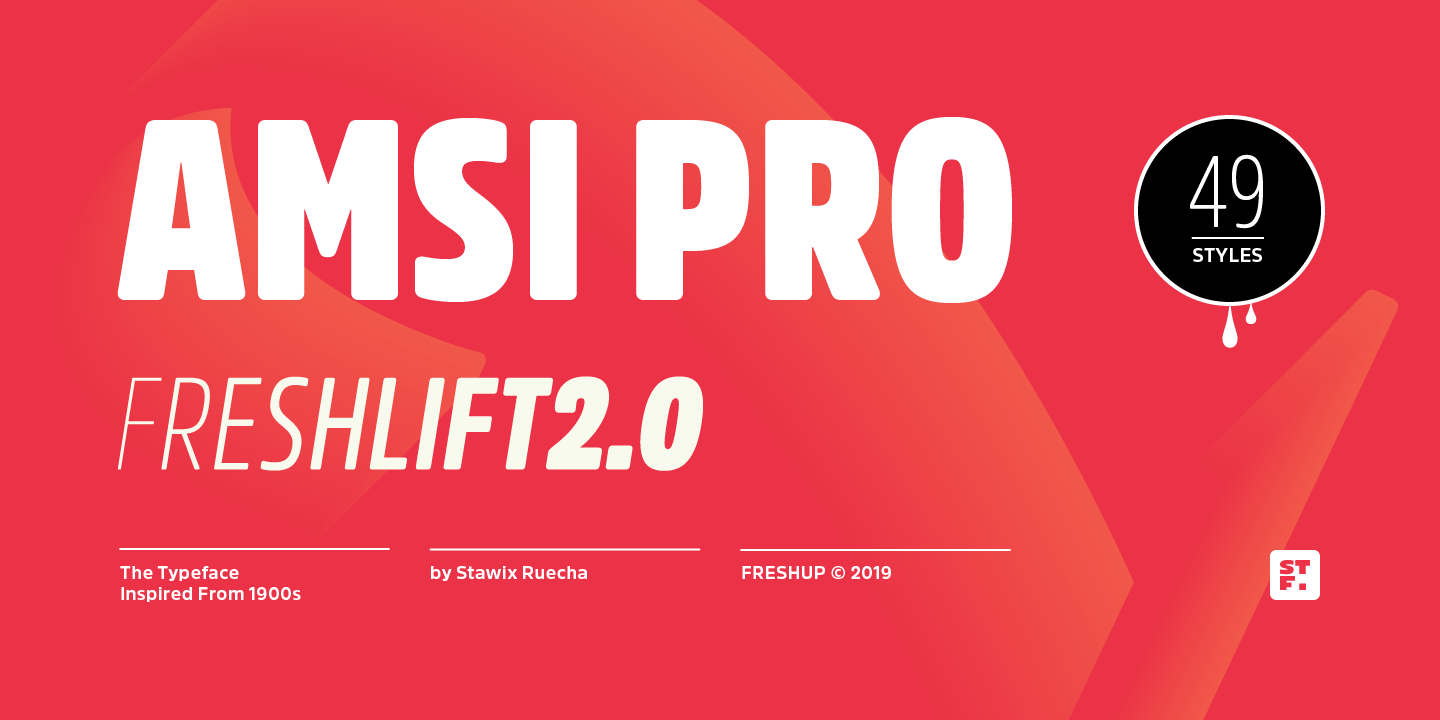
The Amsi Pro Font is exceptionally versatile and shines in a wide array of applications where clarity, contemporary appeal, and outstanding legibility are paramount. Its geometric or neo-grotesque design, often characterized by clean lines, open forms, and precise letter spacing, makes it an ideal choice for corporate branding, modern website interfaces, and impactful editorial headlines. It excels as body text in annual reports, technical documentation, and extensive digital publications, ensuring effortless readability across diverse platforms. Furthermore, consider Amsi Pro Font for UI/UX design, app development, and large-scale signage systems where clear and efficient communication is critical. Its robust yet elegant character also makes it perfect for presentations, information graphics, and brand guidelines.
What makes the Amsi Pro Font so exciting is its remarkable blend of understated elegance and uncompromising functionality. It often features neutral yet distinct letterforms that are designed for optimal readability at various sizes, making it a true workhorse font. This characteristic allows it to communicate a sense of authority, precision, and modernity, ensuring your message is communicated with absolute clarity and impact. It’s a font that doesn't just look good; it performs exceptionally, providing a reliable and elegant foundation for any serious design project. Its sophisticated simplicity ensures your work will appear polished, trustworthy, and highly effective.
The Amsi Pro Font family typically boasts a comprehensive range of weights, making it incredibly adaptable for complex typographic hierarchies. You'll often find an extensive selection, from Thin and Light to Regular, Medium, SemiBold, Bold, ExtraBold, and Black, usually accompanied by corresponding italic styles. This broad spectrum of weights, coupled with potential condensed or extended versions, provides designers with immense flexibility to create visually rich and harmonized layouts while maintaining a cohesive and professional brand identity across all touchpoints.